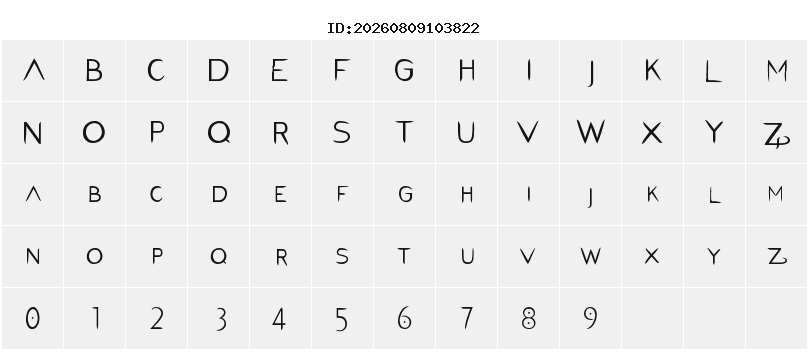
• Font Name: PentaGram’s Salemica
About PentaGram’s Salemica.ttf
PentaGram’s Salemica.ttf is a modern, elegant sans-serif font designed for ultimate readability and visual harmony. Perfect for branding, headlines, web design, and print materials.